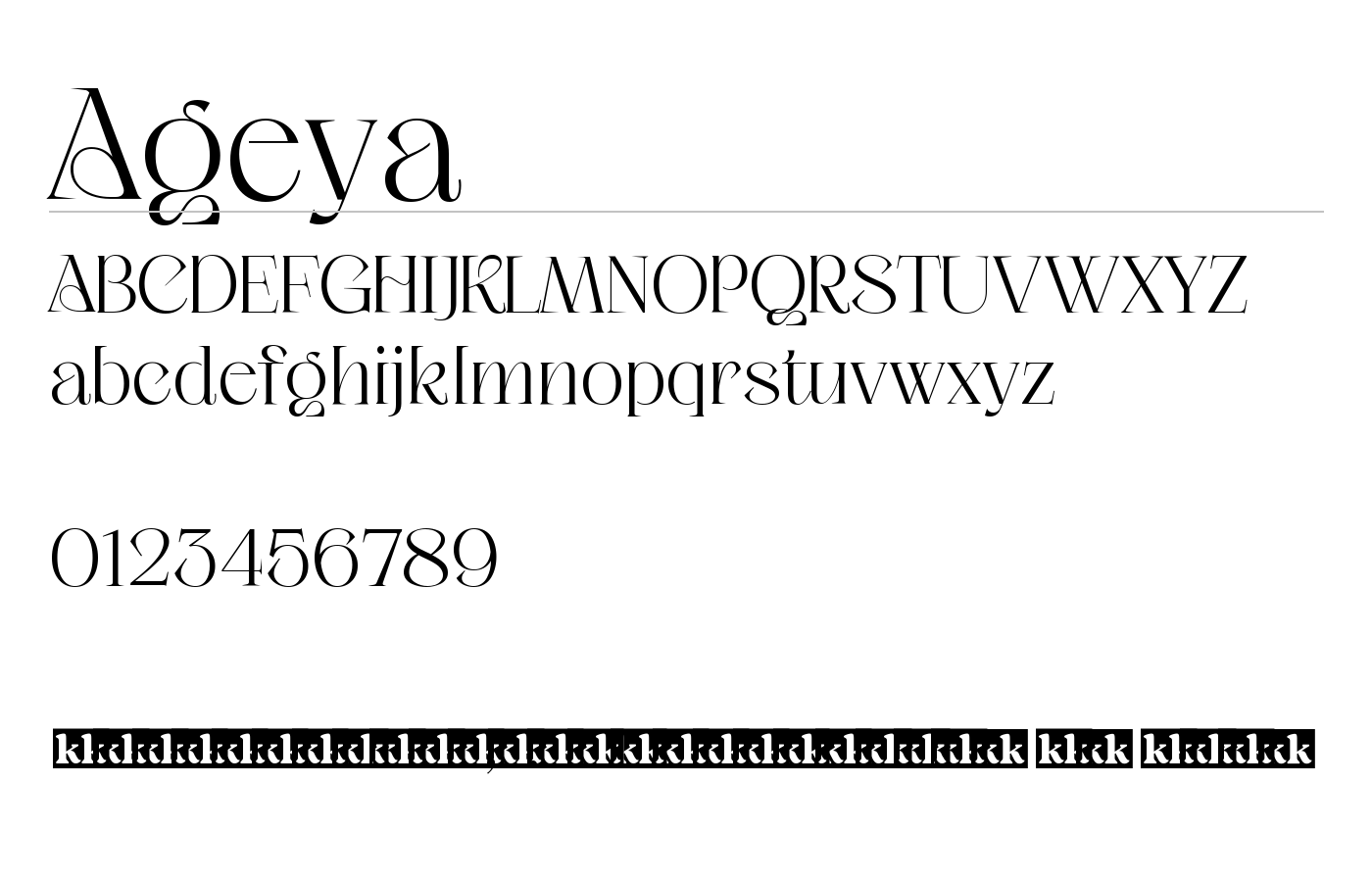
Ageya is a refined serif font characterized by its elegant, high-contrast strokes and delicate, bracketed serifs that give it a sophisticated, almost calligraphic feel. Its tall x-height and unique letterforms, like the looping tail on the lowercase 'g' and the distinct uppercase 'Q', make it ideal for luxury branding, editorial headlines, and fashion packaging where a modern yet classic impression is needed. This font combines artistic flair with readability, making it perfect for projects that require both style and grace.
Ageya Font